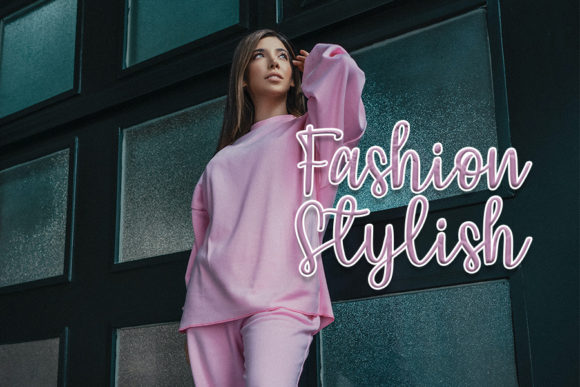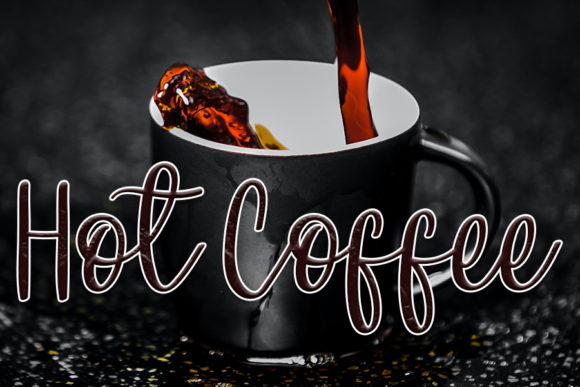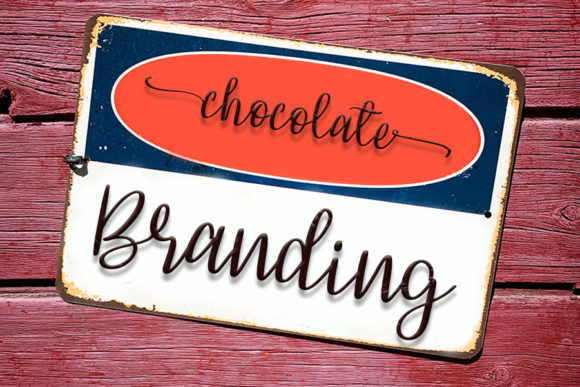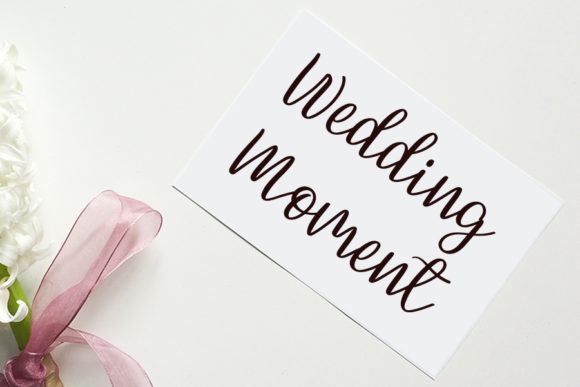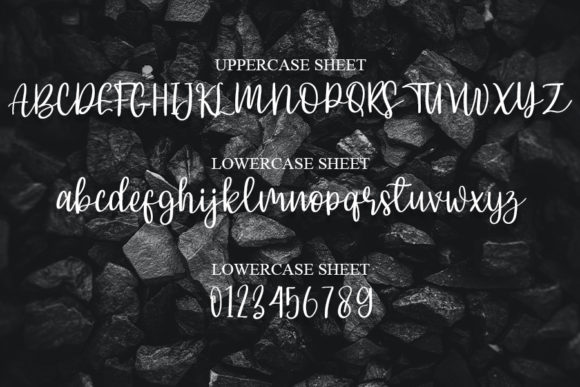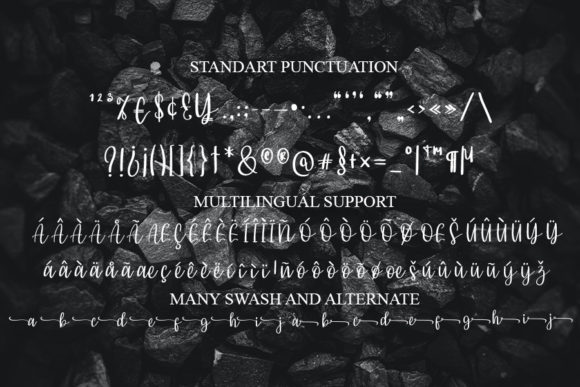
Unlock the Magic of Romance with the Bellasia Hawainis Font
Have you ever sat down with a blank page, a cup of coffee, and a spark of creativity, only to have it all come together in a perfect storm of design? For many of us, that’s the moment when the magic happens – and the right font can make all the difference. Enter the Bellasia Hawainis Font, a romantic and dainty script font that’s perfect for adding a touch of elegance to your designs.
Whether you’re creating a logo, designing invitations, or crafting social media posts, the Bellasia Hawainis Font is a valuable addition to any designer’s toolkit. With its classy, modern look and PUA encoding, this font makes it easy to access all the glyphs and swashes you need to create truly unique and eye-catching designs. Whether you’re working on a wedding project, a branding campaign, or simply want to add some romance to your social media posts, the Bellasia Hawainis Font is the perfect choice.
Bellasia Hawainis Font Key Features
- Unique Characteristics: Elegant, cursive script with a Hawaiian-inspired flair, ideal for creative projects and designs
Bellasia Hawainis Font Review
Initially, I was drawn to the unique and exotic feel of the Bellasia Hawainis font. It has a ✨ distinctive and elegant touch, perfect for adding a touch of sophistication to your designs. The font’s curves and lines seem to dance across the page, creating a sense of movement and energy. ✨
However, upon closer inspection, I noticed some limitations that prevent it from being a top-tier font. First, the font’s readability can be an issue, especially in smaller sizes. The intricate details and flourishes can make it difficult to decipher individual letters, which may lead to mistakes or frustration. ⚠️
Additionally, the font’s versatility is limited. It’s best suited for formal or creative projects where its unique style can shine. For more straightforward or technical projects, it may not be the best choice. ⚠️
Overall, I would recommend the Bellasia Hawainis font to designers who value its unique aesthetic and are willing to work around its limitations. With the right project and a clear understanding of the font’s capabilities, it can be a valuable addition to your design arsenal.
- Unique and elegant design
- Perfect for formal or creative projects
- Not ideal for smaller text sizes or technical projects
- May require adjustments for optimal readability
Tips for Getting the Most Out of Bellasia Hawainis
Use Bellasia Hawainis for titles, headings, and short paragraphs to add a touch of elegance to your design.
Combine Bellasia Hawainis with other fonts to create a unique and visually appealing typography.
Experiment with different font sizes and styles to find the perfect balance for your design.